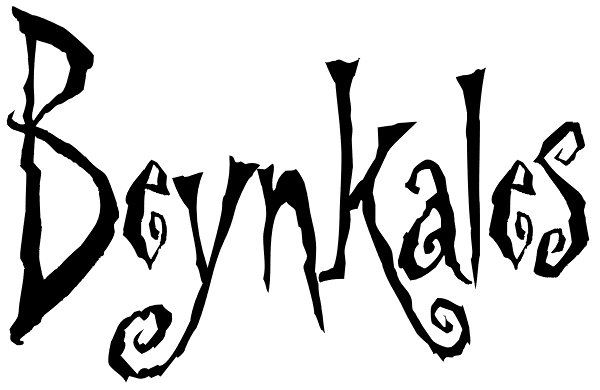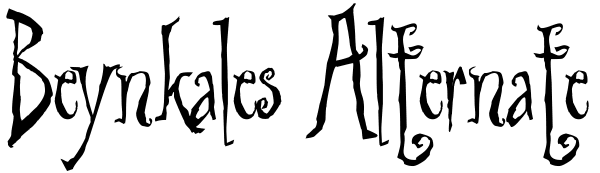
Beynkales
Now here's a font with an unusual backstory. You may recall that a while ago we discovered that Tim Burton was using an outdated version of one of our fonts for the interior titles in his The Corpse Bride. Well, our quest to get hold of him didn't...
Beynkales
Beynkales Alternate